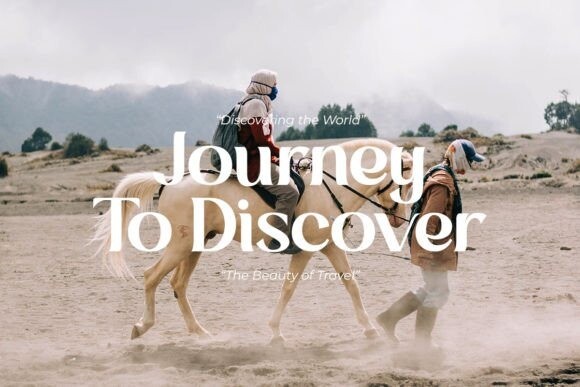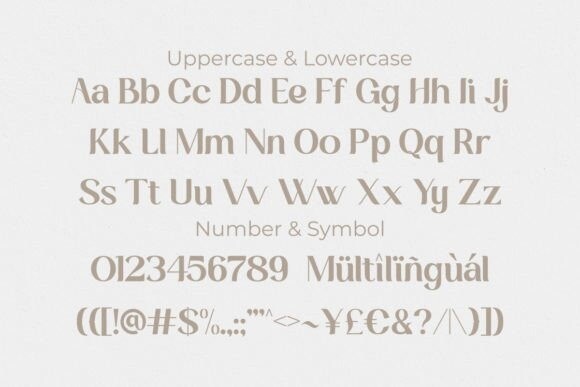
Grader Font
Grader Font is modern serif font. It is perfect for headlines, classy editorial design, magazines, fashion brands ,cosmetic brands, fashion promotion , modern advertising designs, invitation cards, art quotes, home decoration , book/cover titles, special events, and much more.